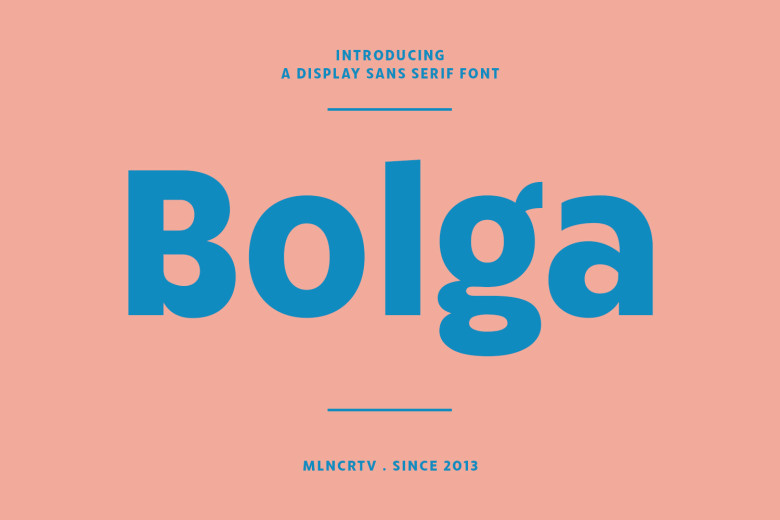
Bolga Font
Bolga is an elegant sans-display font with bold strokes, fun characters and ligatures that makes an impactful statement in logos, social media posts, movie titles, books titles, short texts or long text letters. Bolga will stand out in your work! Let Bolga be part of it all.
Bolga Sans Serif Font